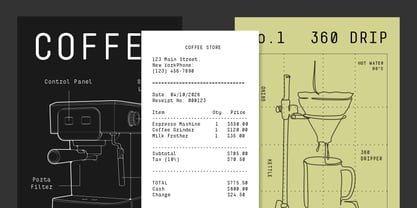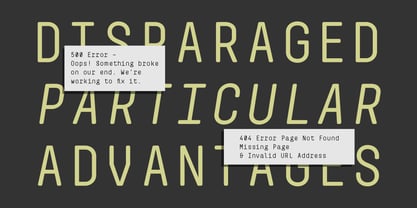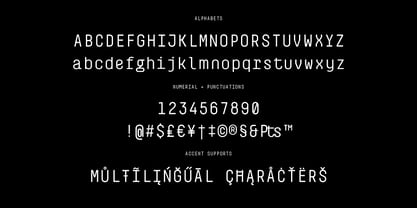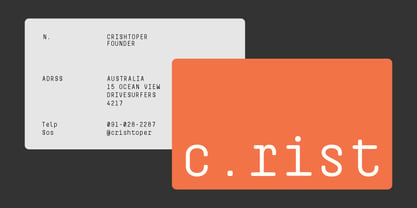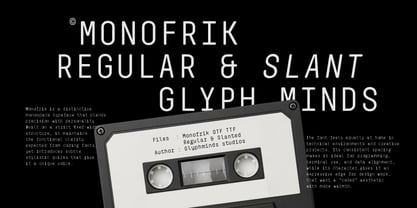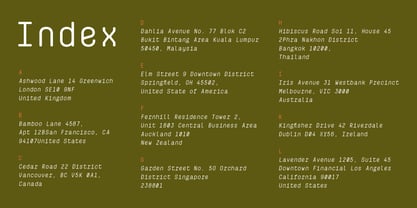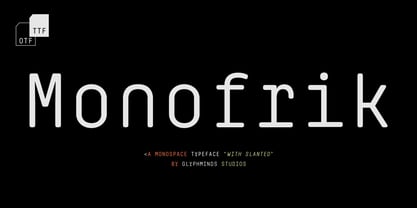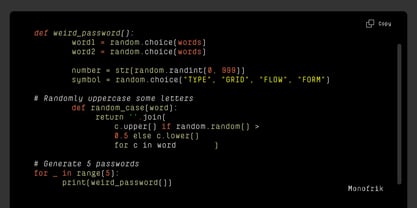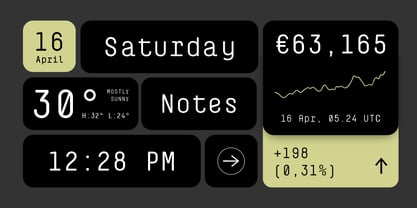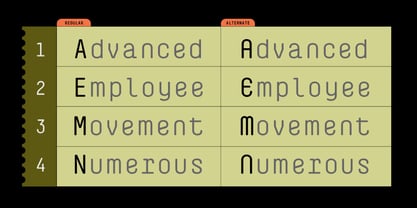
Monofrik
by Glyphminds Studios
Introducing Monofrik, a modern monospaced typeface designed for creators who want clean structure with a unique twist. Built with precision and simplicity, Monofrik blends a technical coding style with smooth rounded details—making it perfect for branding, UI design, posters, tech projects, and editorial layouts. This font comes in 2 styles: Regular and Slanted, giving you flexibility to create both stable and dynamic visual compositions. Whether you're designing for a startup, building a developer portfolio, or crafting minimalist visuals, Monofrik delivers a professional and contemporary look that stands out without being overwhelming. Upgrade your typography with a font that balances precision and personality.